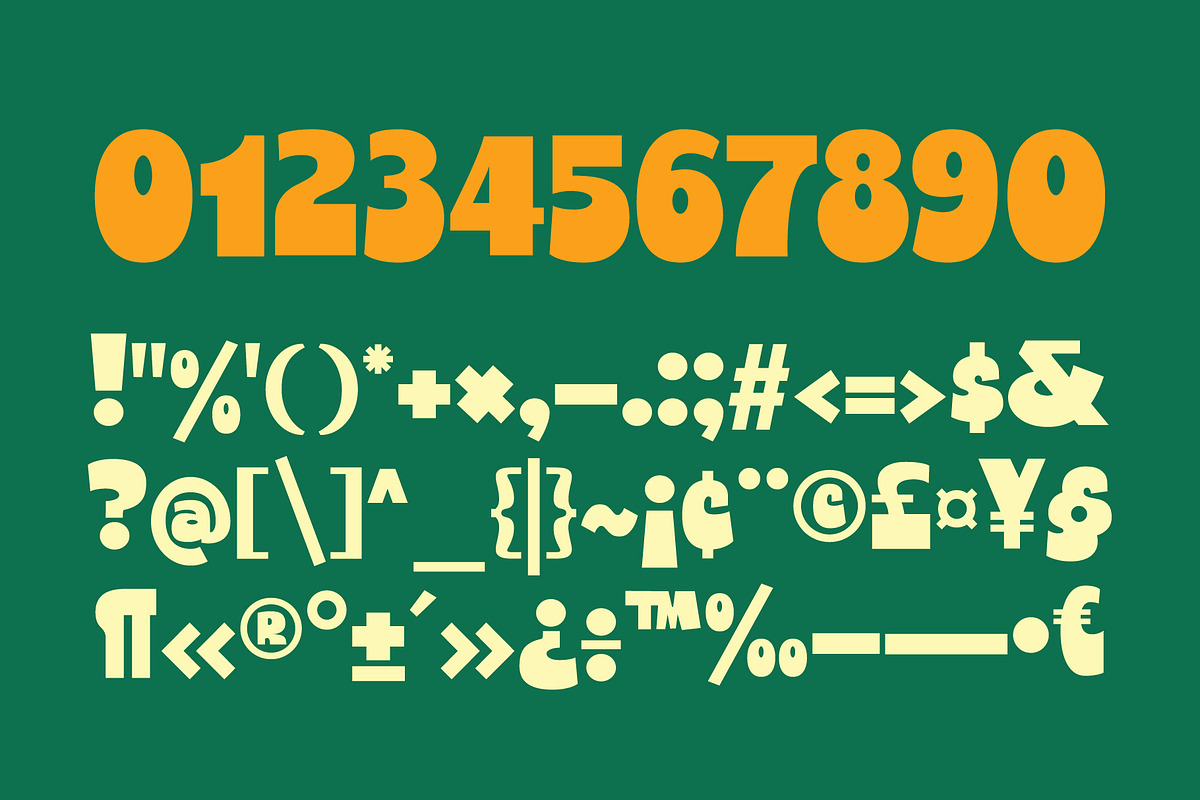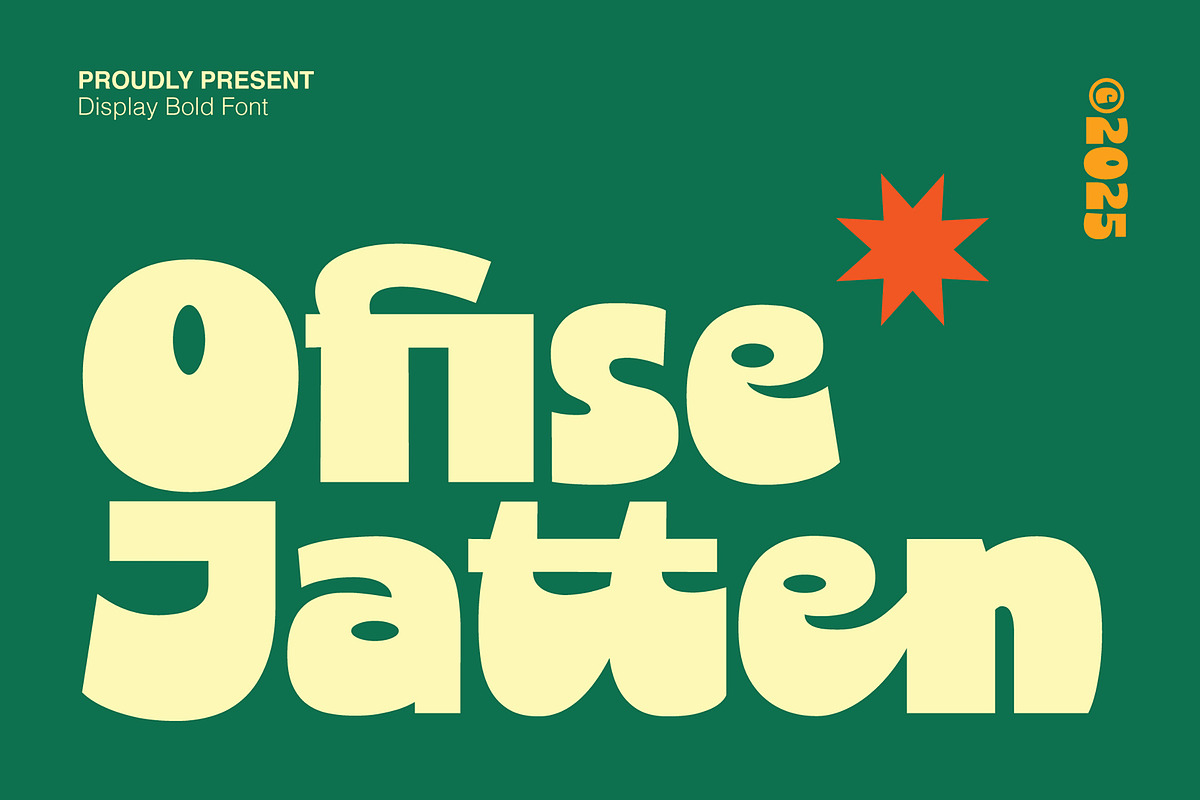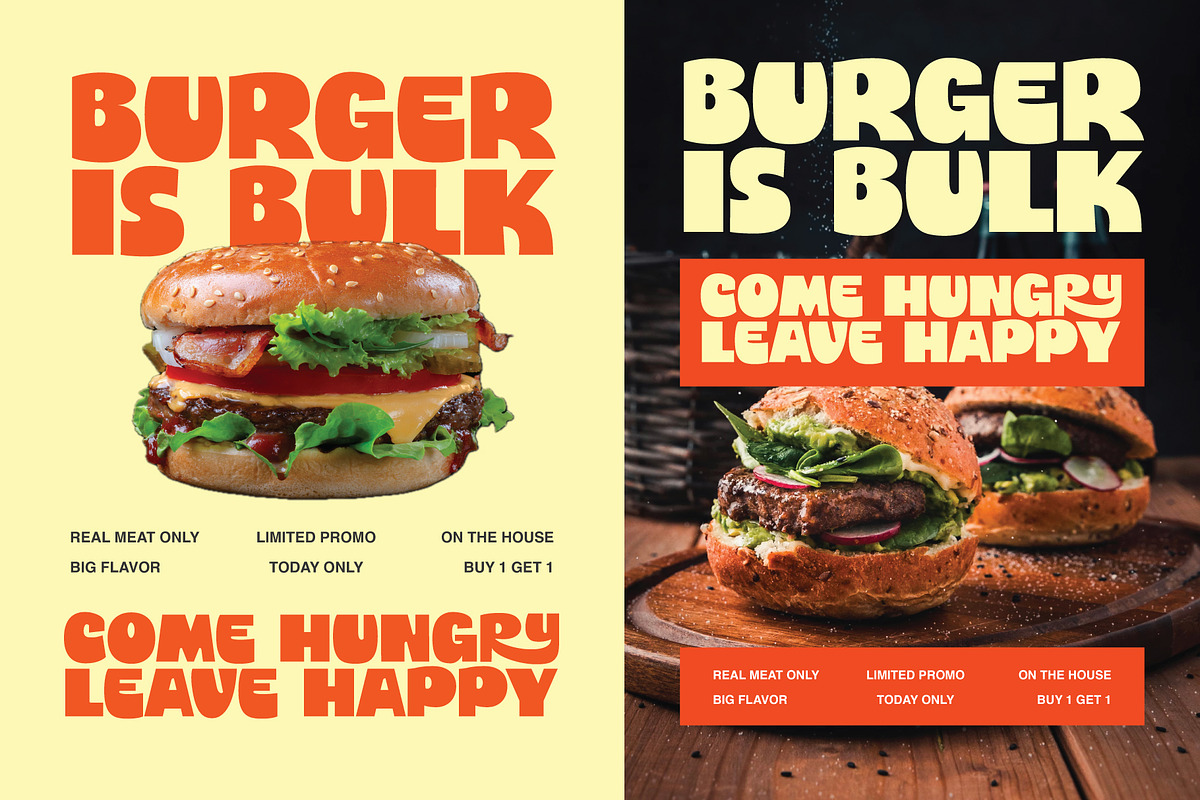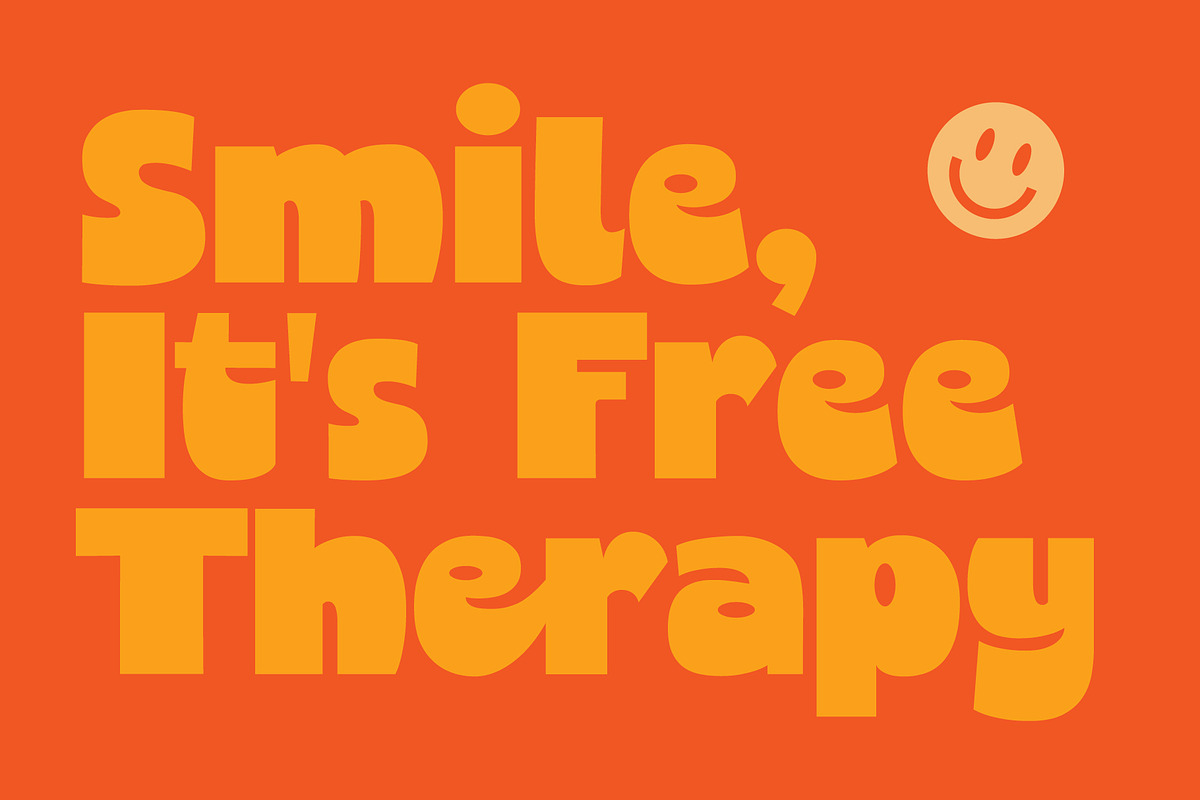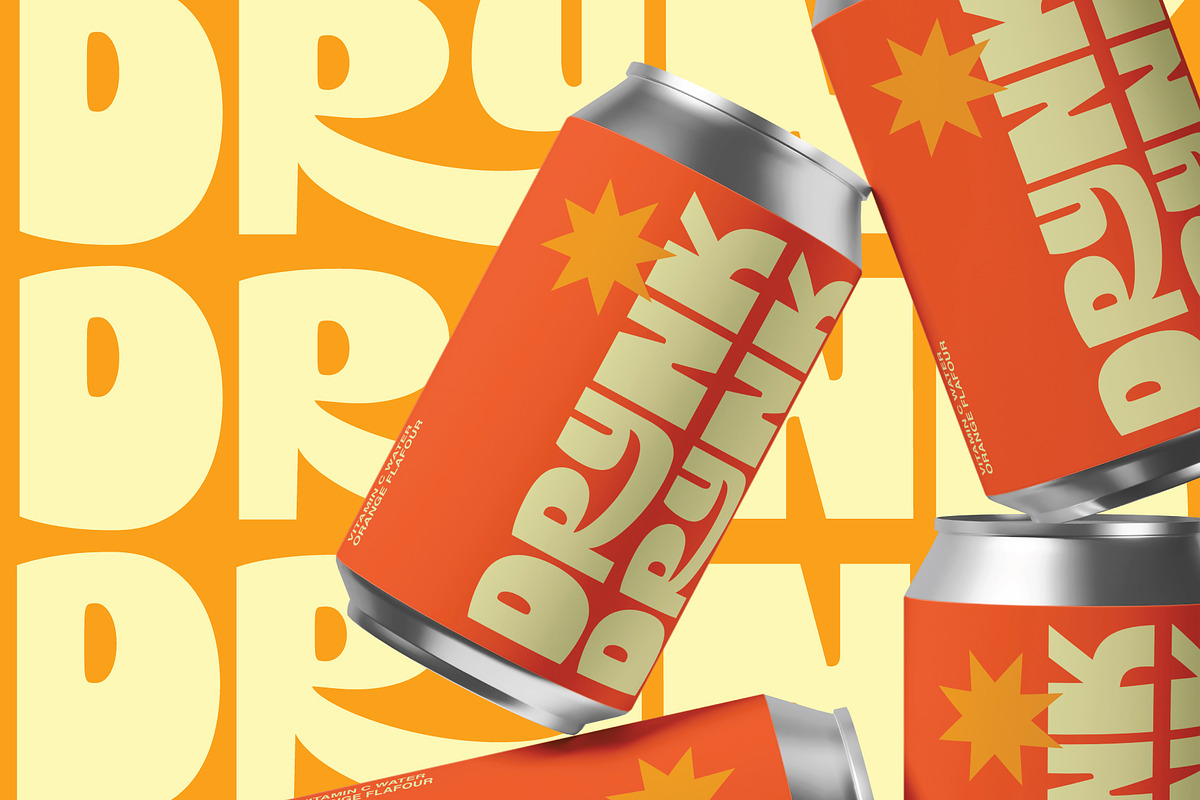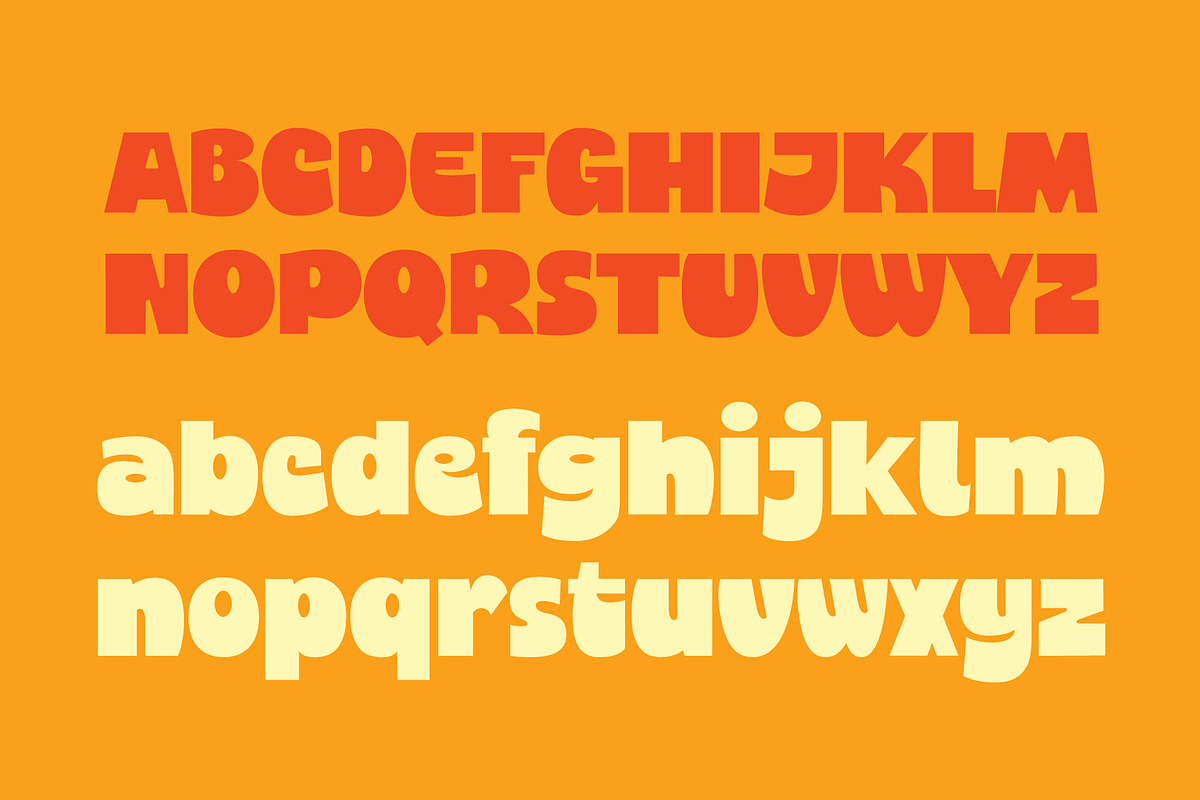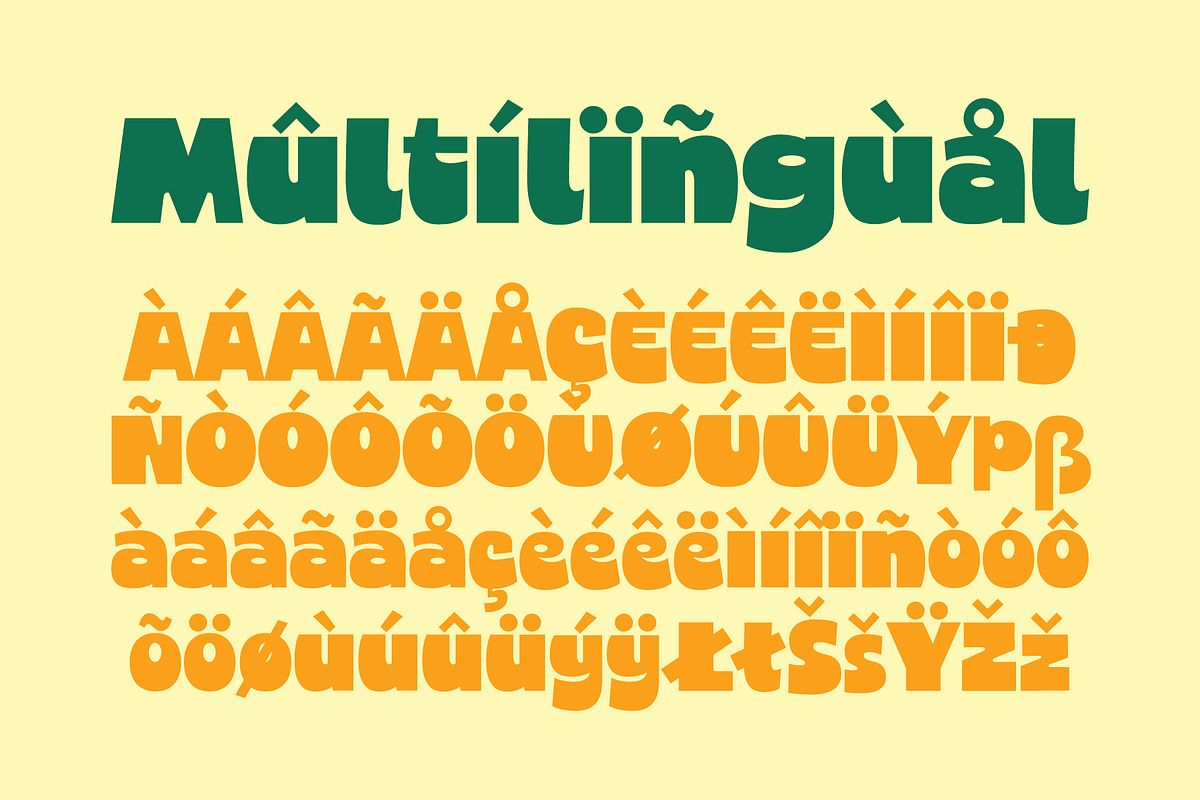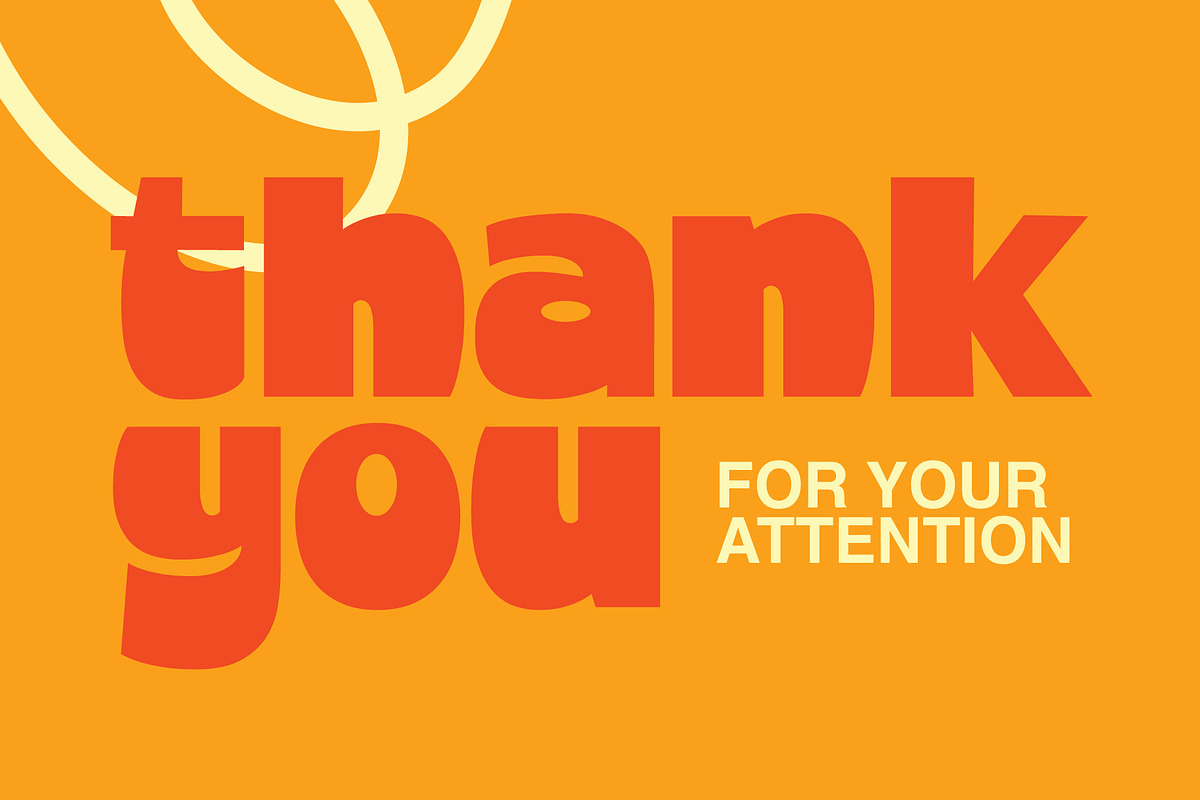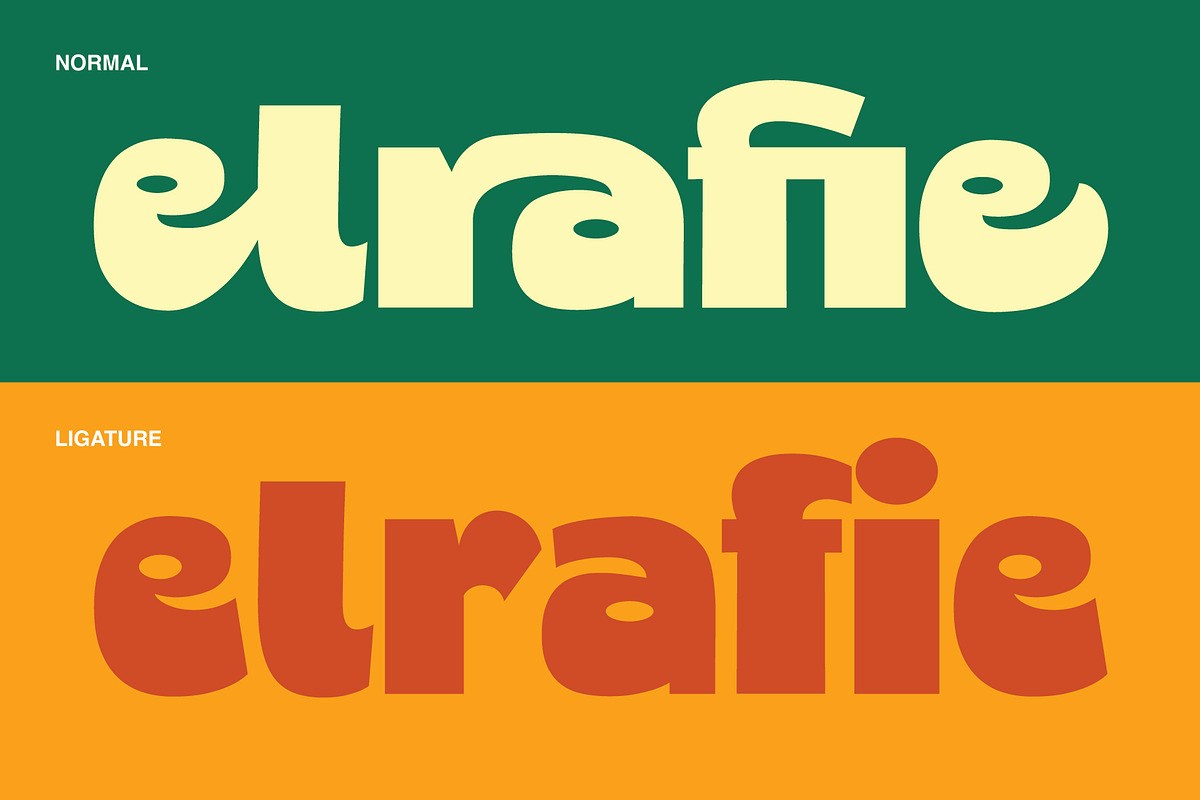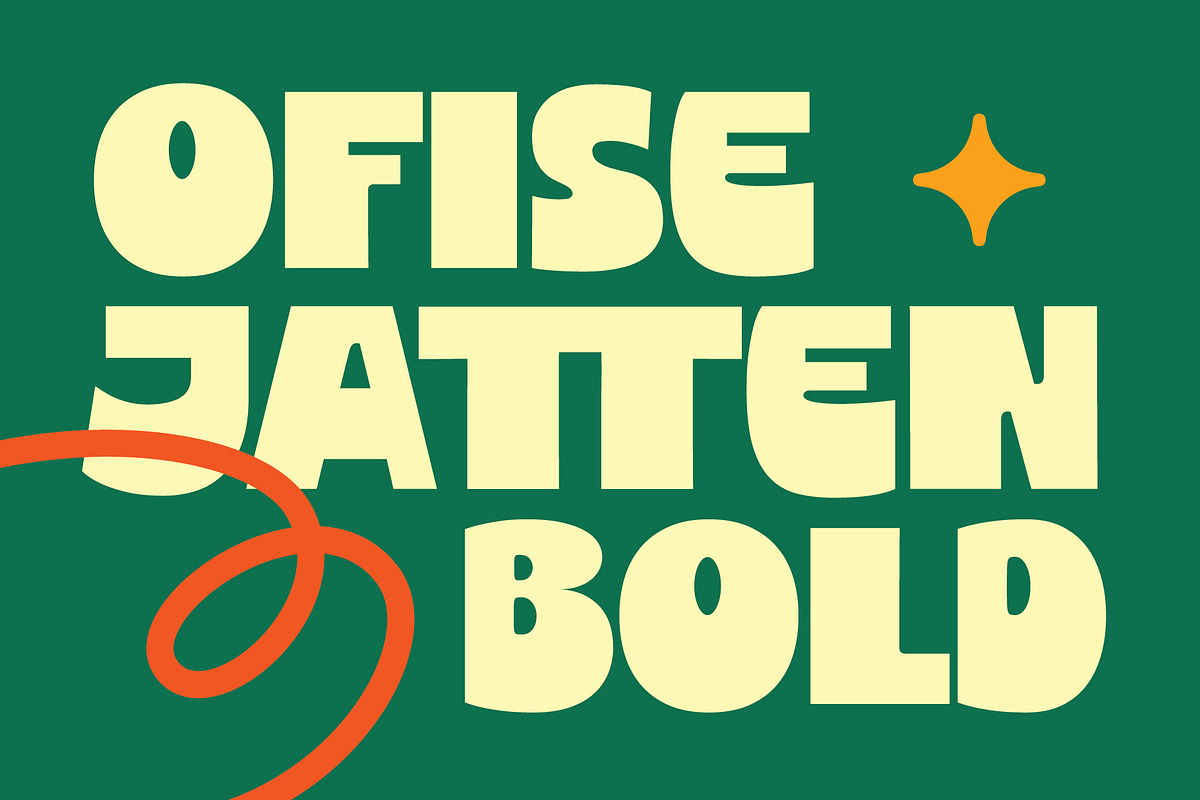
Ofise Jatten - Bold Display
Ofise Jatten – Display Bold Font
Ofise Jatten is a bold display font with playful curves and strong visual presence. Designed to stand out, this typeface features chunky letterforms and dynamic shapes that bring energy, confidence, and a modern personality to your designs. Its bold structure makes it perfect for eye-catching headlines and expressive visual compositions.
Ideal for posters, branding, packaging, editorial titles, logos, social media graphics, and creative displays, Ofise Jatten delivers a fun yet professional look that instantly grabs attention while remaining highly readable.
Stylistic alternates
Bring character, boldness, and creative impact to your projects with Ofise Jatten.